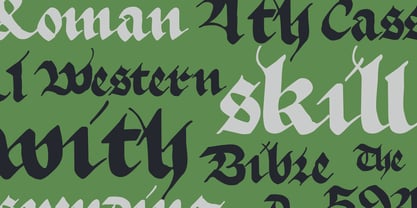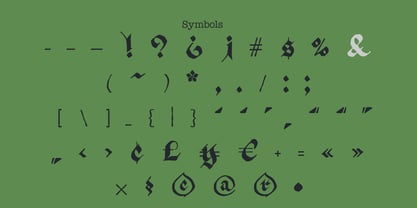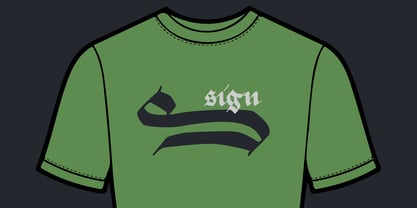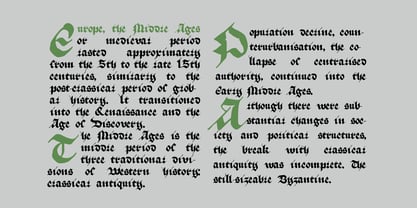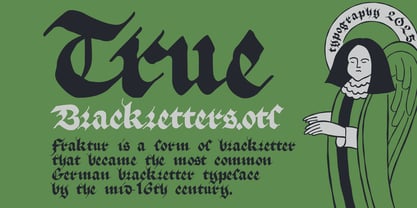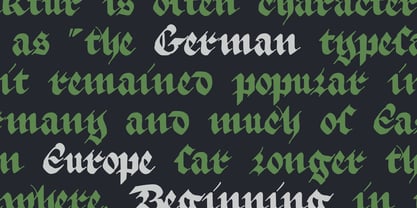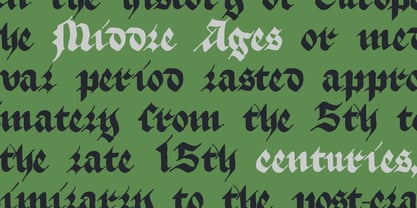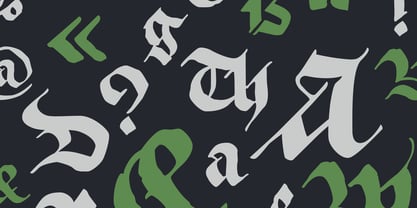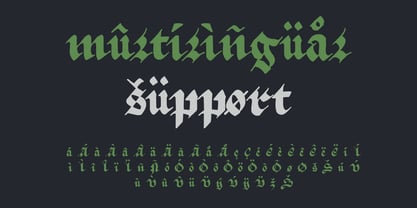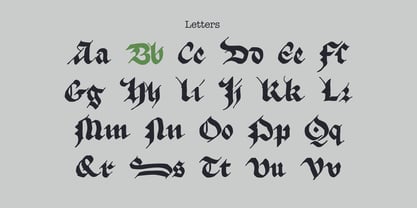
True Blackletters
by Kaer
The True Blackletters Font Family was designed by Roman Korolev and published by Kaer. True Blackletters contains 1 styles.
This font based on Prayer book. German manuscript of late 15th century belongs to the monastery in Strasbourg. As usual, I’ve added some modern symbols.
* Uppercase and lowercase
* Multilingual support
* Numbers
* Symbols
* Punctuation
* Ligatures